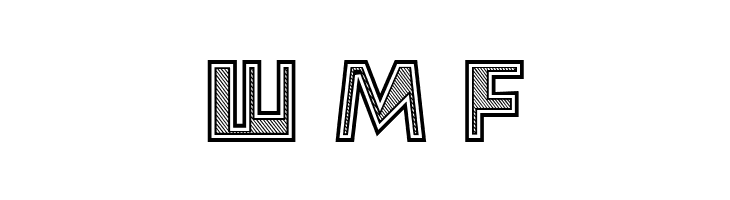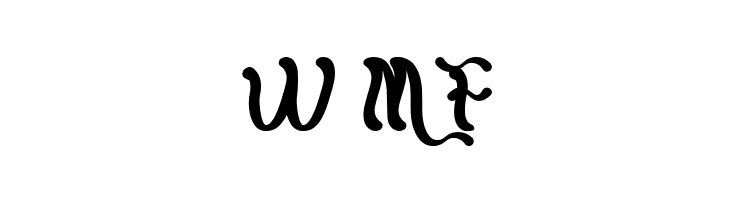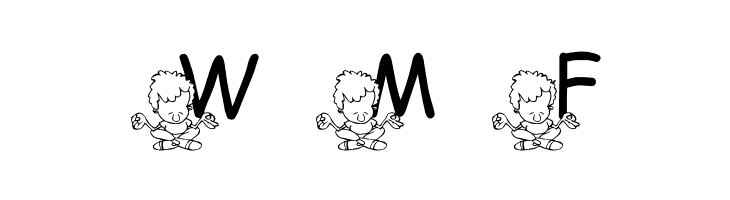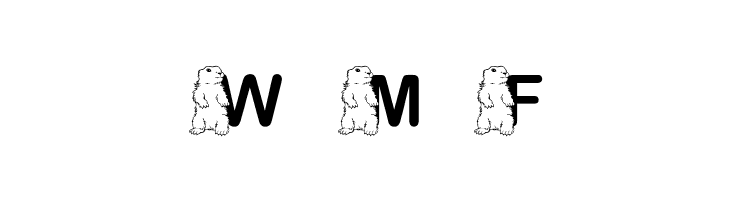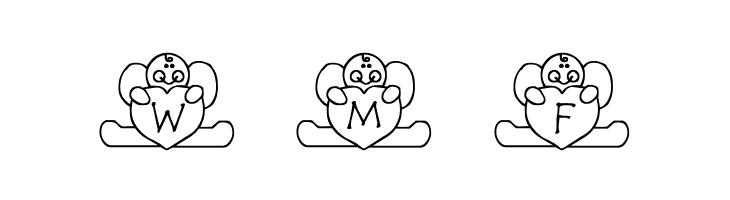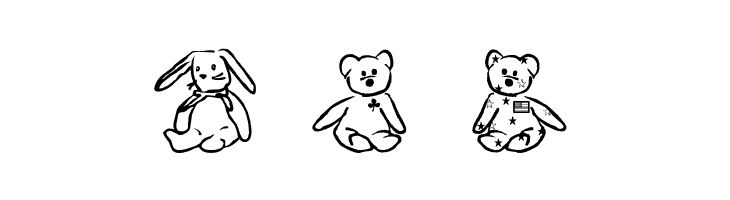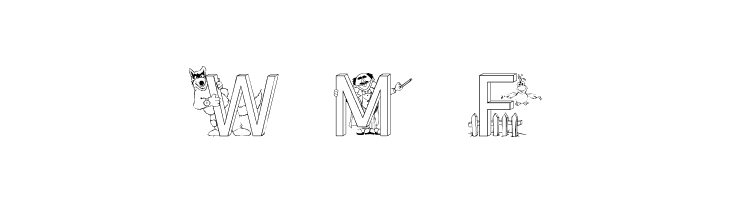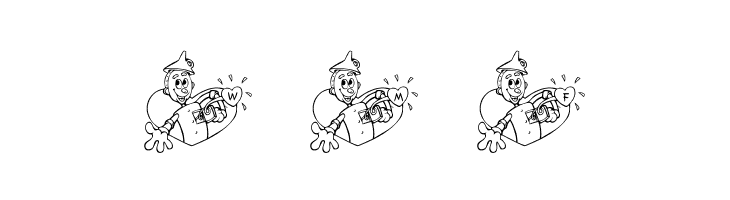
A playful font with meditating characters accompanying each letter.
A whimsical font with bold letters and groundhog illustrations.
A whimsical, angel-themed decorative font with playful characters.
A decorative dingbat font with plush toy and animal illustrations.
A whimsical, character-themed decorative font perfect for playful projects.
Whimsical cartoon tin man illustrations for each character.
A whimsical, decorative font with rose motifs and a handwritten style.
A bold, decorative font with a unique striped pattern and geometric design.
A bold, decorative font with a three-dimensional effect and intricate patterns.
A bold, playful font with curly, decorative elements.